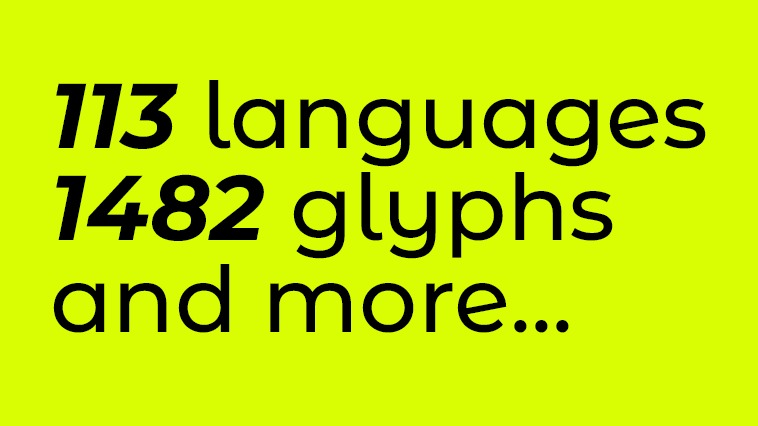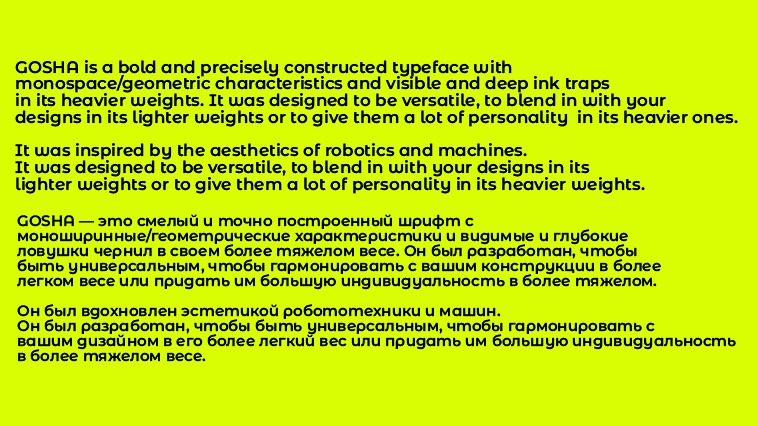
GOSHA Sans Serif Font
This font comes with a geometric sans serif style and a modern and elegant sans serif tagline. It was designed to be versatile, to blend in with your designs in its lighter weights or to give them a lot of personality in its heavier ones. It was inspired by the aesthetics of robotics and machines. It was designed to be versatile, to blend in with your designs in its lighter weights or to give them a lot of personality in its heavier weights.